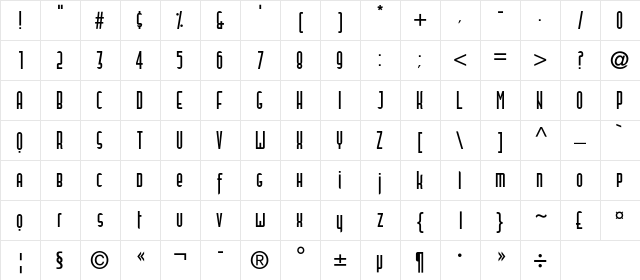
Blits-Two Regular
Design Context for Blits-Two Typeface
Blits-Two is a composed and adaptable typeface that performs quietly and consistently across a wide range of design contexts.